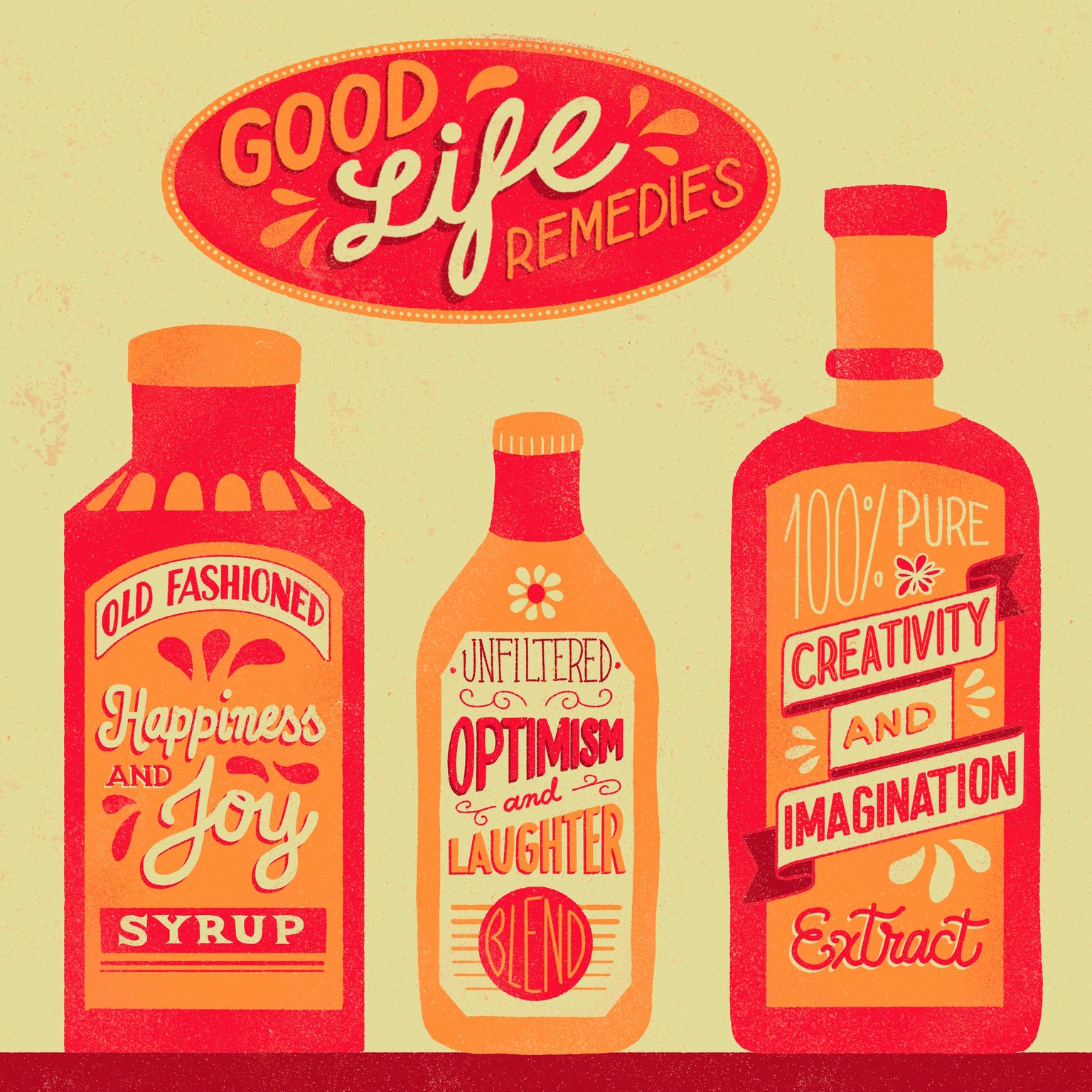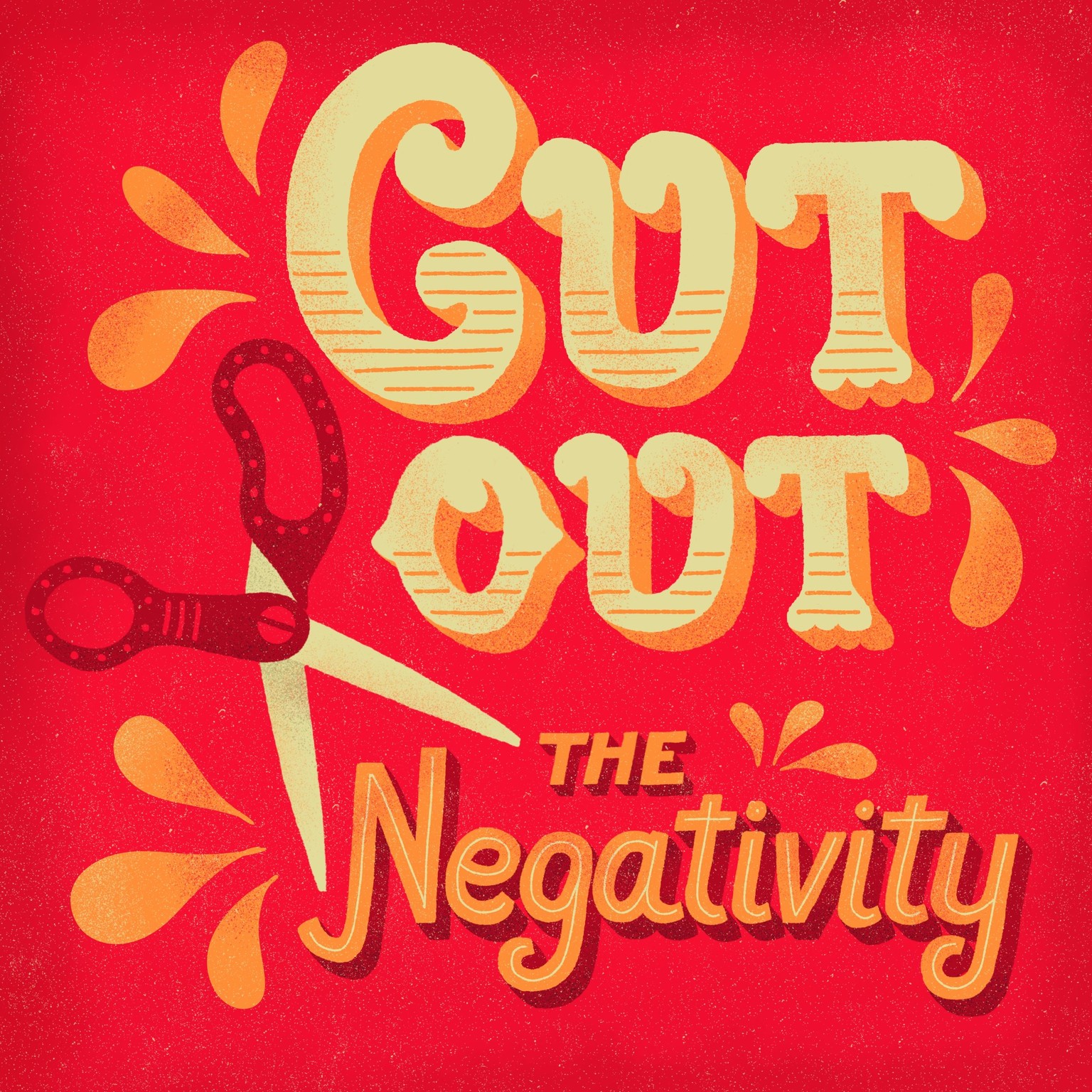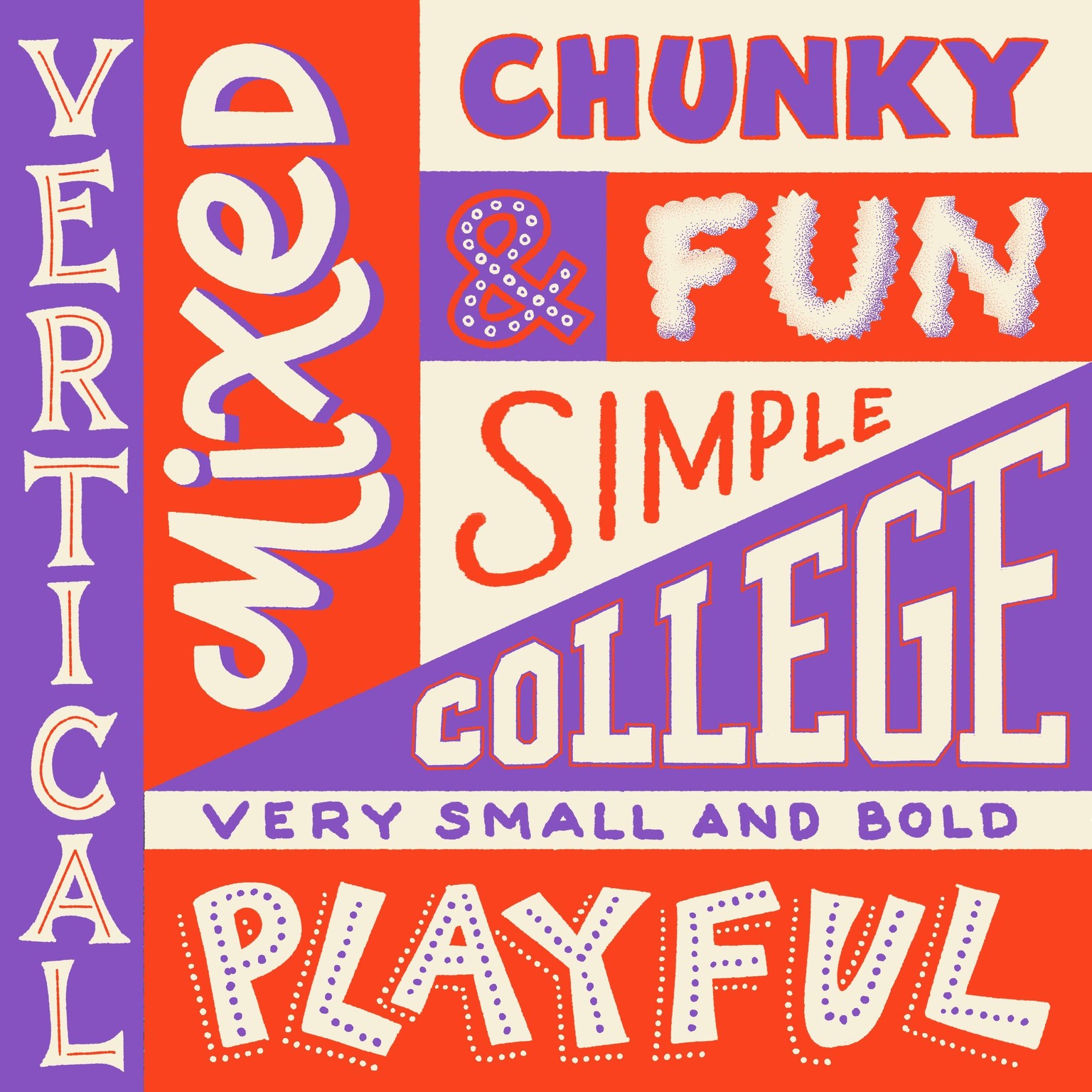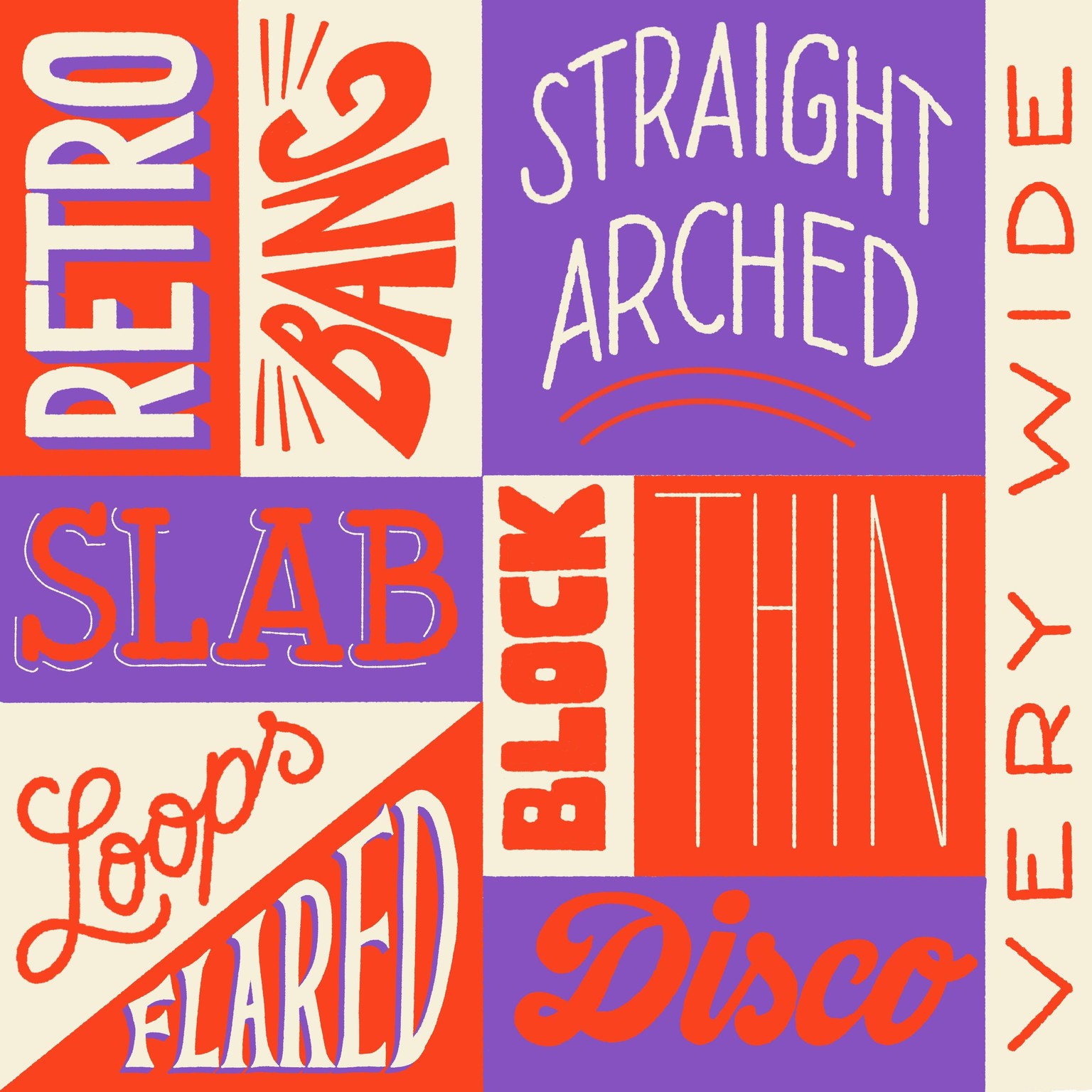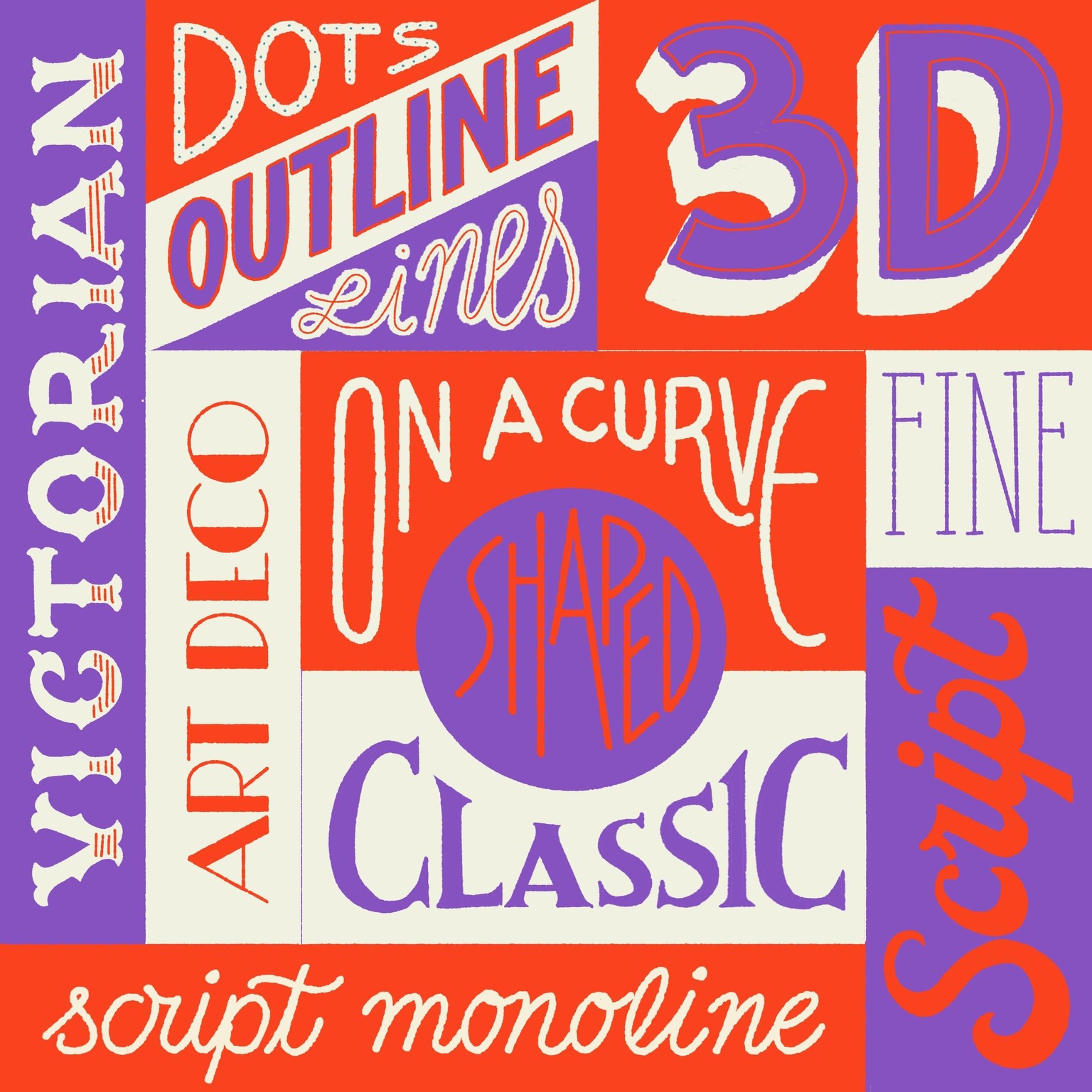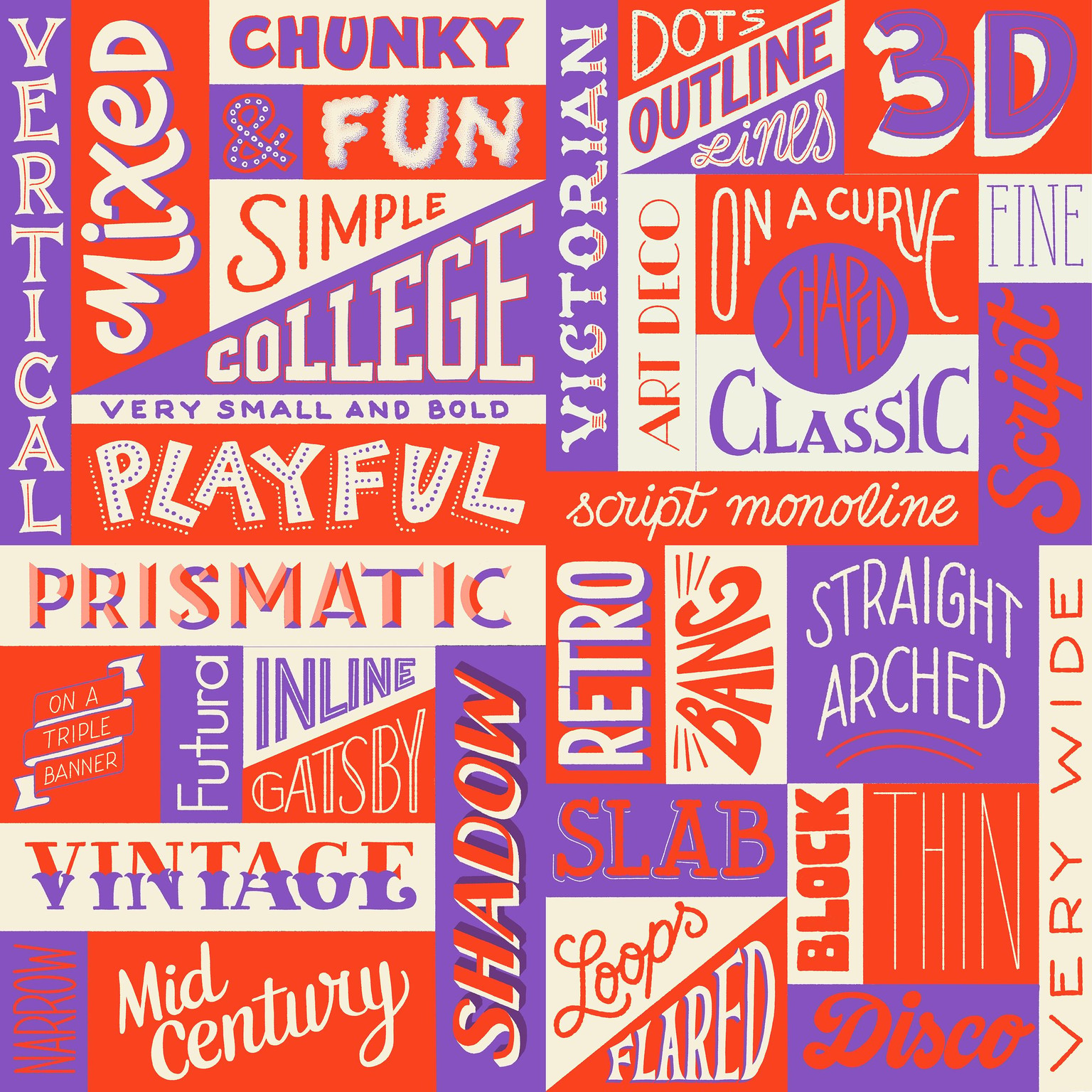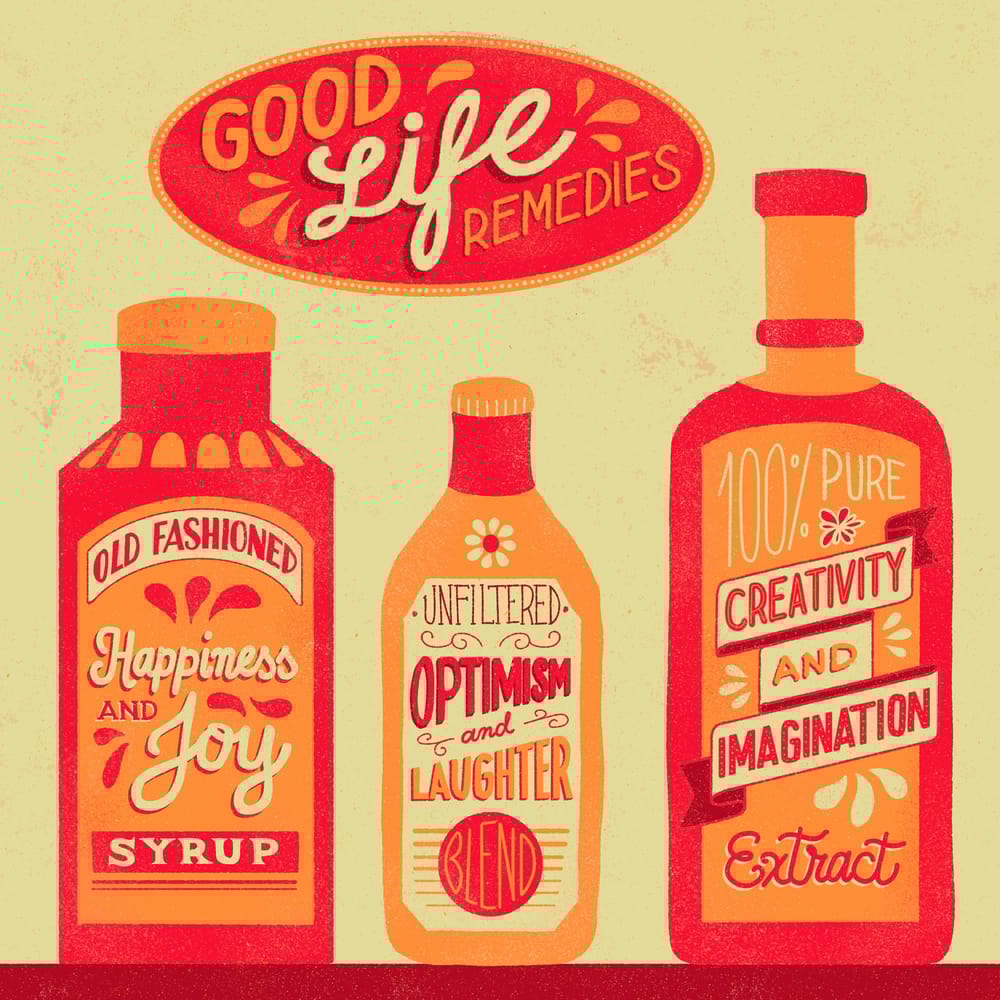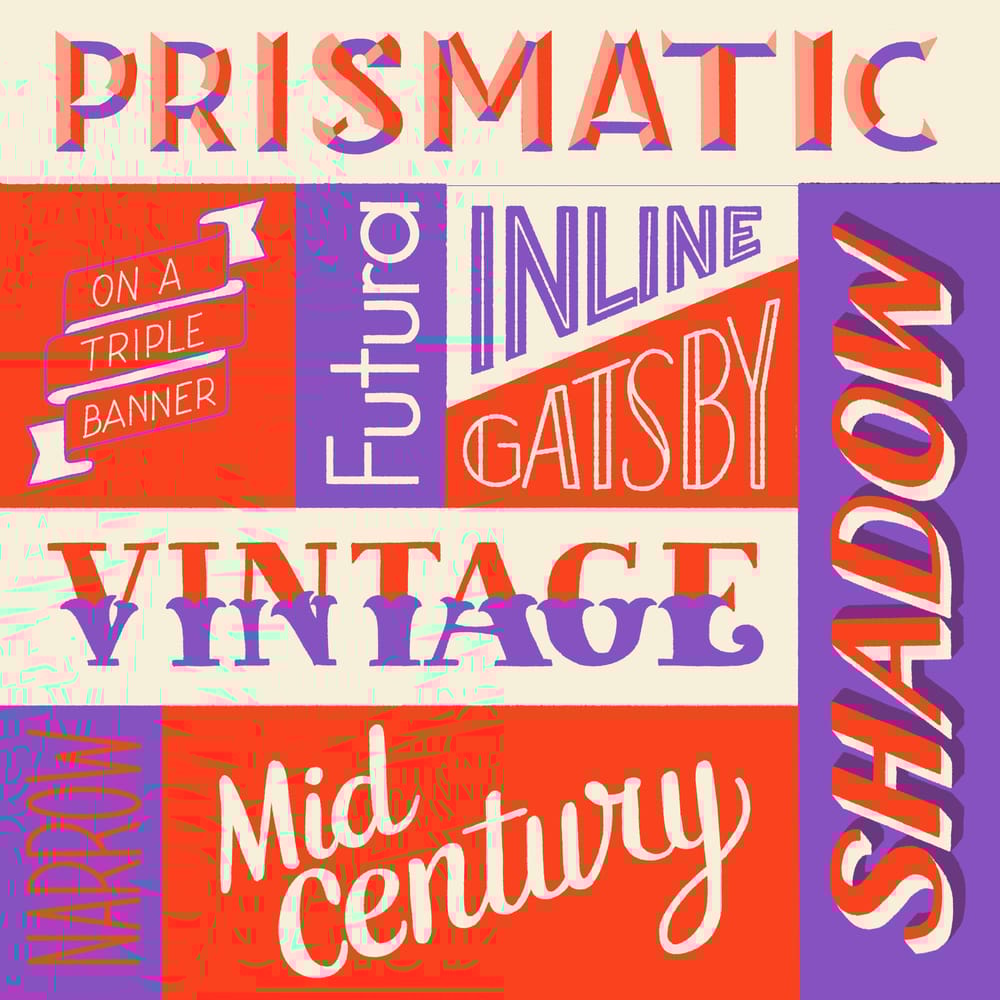
Font menu & lettering and illustration challenge
Created there illustrations for Liz’ lettering and illustration challenge.
I used Bruce Springsteen’s lyrics for the ‘matchbox’, some fun words for life remedies for the ‘bottles’ prompt and also a quote with the word ‘cut’ together with the scissors prompt.
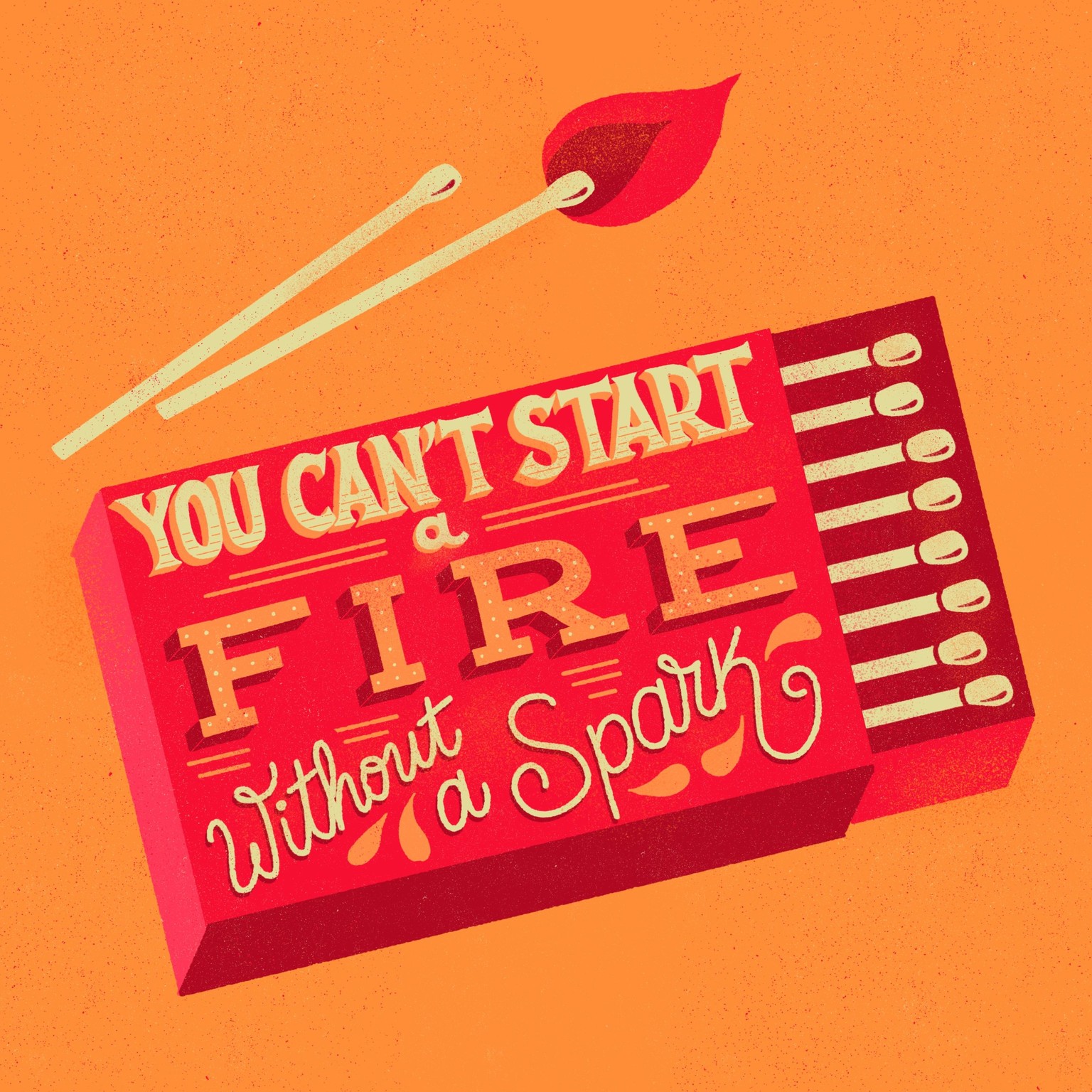
I created a large font menu with as many font styles I could think of!
I loved the 3 colour palette suggestions and chose this specific one
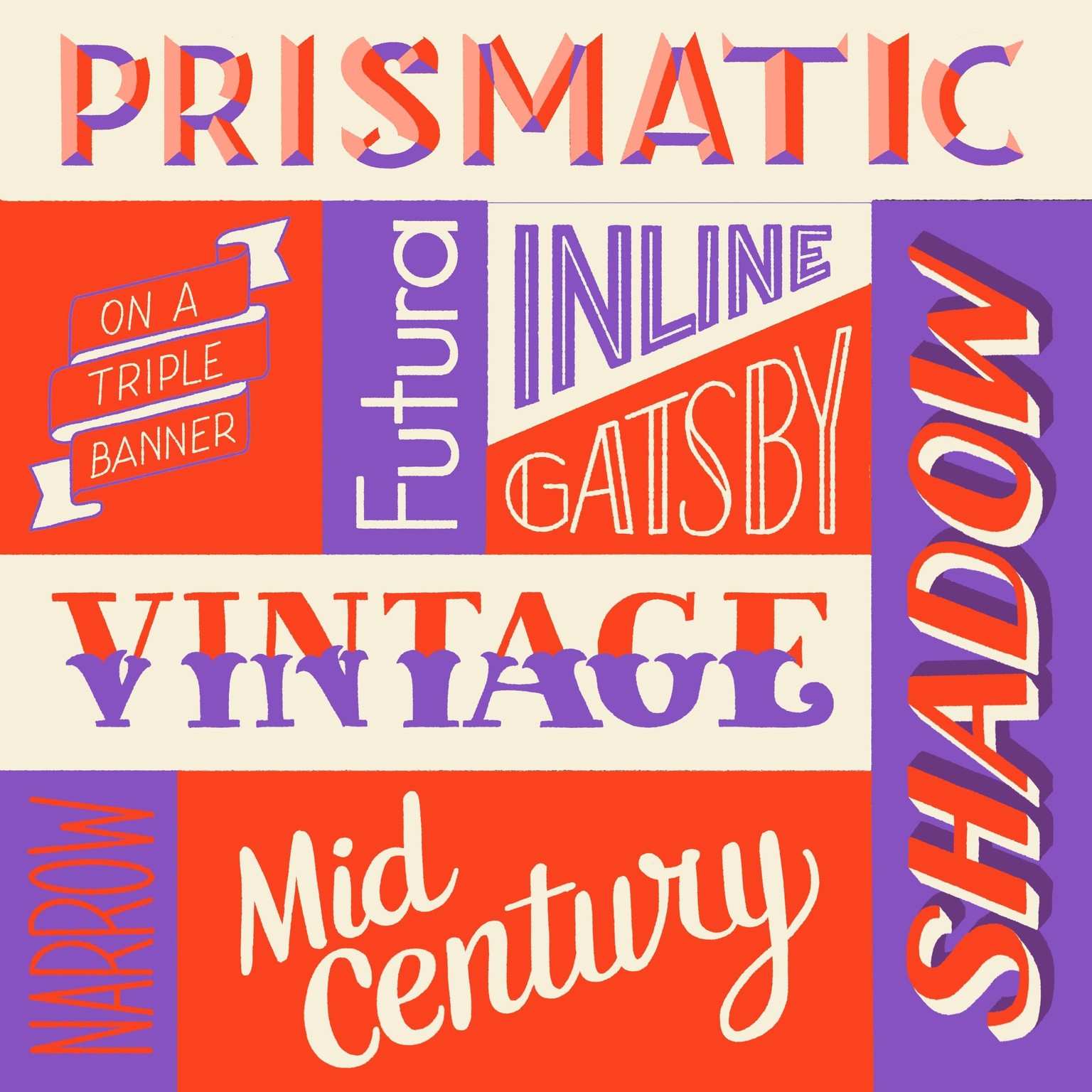
And the 4 of them together